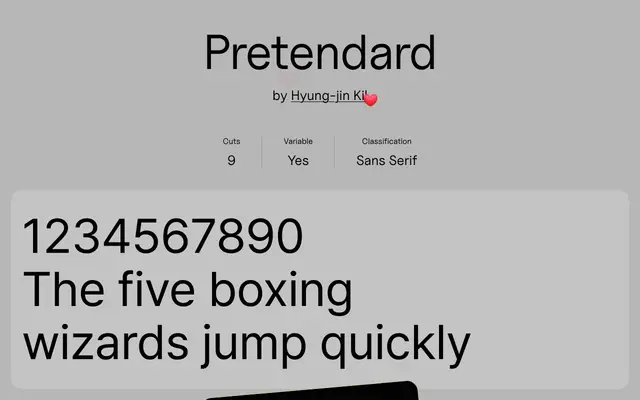
Pretendard
A free, variable grotesque by Hyung-jin Kil designed to reconcile Korean Hangul and Latin letterforms across nine weights.
Available under the SIL Open Font License, Pretendard spans nine cuts including a variable font, making it freely usable in commercial and personal projects. The design focuses on harmonising Korean and Latin scripts within a clean, neutral grotesque framework. Its open licence and variable axis make it a practical choice for digital interfaces requiring consistent bilingual typography.
Classified as Sans Serif by the foundry. Pretendard is a Korean-Latin grotesque designed to harmonise Latin and Hangul letterforms.